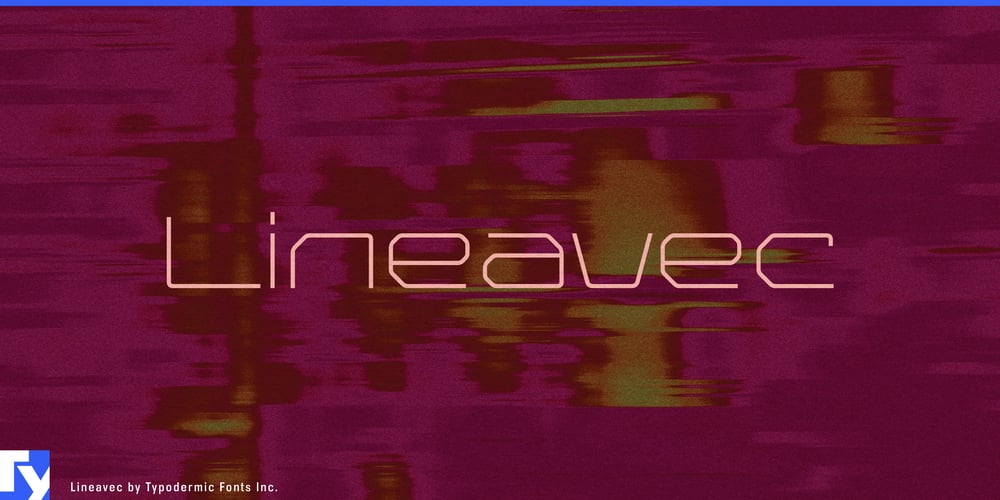
Lineavec Font Family was designed by Ray Larabie and published by Typodermic. Lineavec contains 1 styles and family package options. Lineavec: the typeface that doesn’t just imagine the future—it blueprints it. This is a wormhole to tomorrow, each character a pixel in the grand digital tapestry of what’s to come.Imagine if TRON and Blade Runner had a typographic love child, raised on a steady diet of vector graphics and neon dreams. That’s Lineavec—precise, wide, and light as a laser beam, yet carrying the weight of technological progress in every stroke. Its sleek, minimalistic design is the DNA of digital evolution, each letter a building block in the architecture of innovation. From the retro glow of vector arcade games to the cold precision of circuit board traces, Lineavec speaks the language of both nostalgia and cutting-edge tech.This font isn’t just a design choice—it’s a manifesto. For tech startups, it’s the typographic equivalent of a disruptive algorithm. For gaming websites, it’s the textual user interface to virtual worlds yet unexplored. And for sci-fi films? Lineavec is the subtitles to the alien languages of distant galaxies. But Lineavec’s reach extends beyond the realm of pixels and processors. Supporting a vast array of Latin-based European writing systems, it’s ready to take your message interstellar. From the fjords of Norway to the plains of Hungary, Lineavec communicates in the universal dialect of future-forward design.Ready to calibrate your typography to the frequency of tomorrow? With Lineavec, you’re not just choosing a typeface—you’re encoding the future, one precisely calculated character at a time.